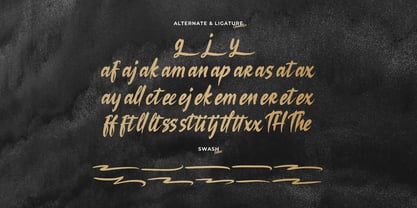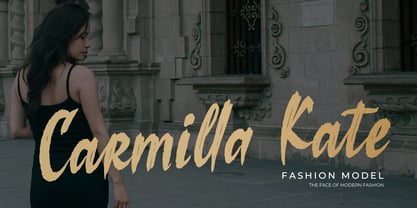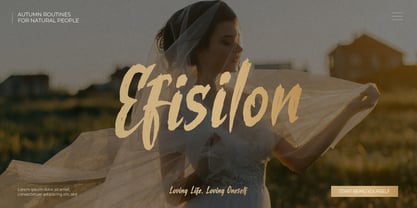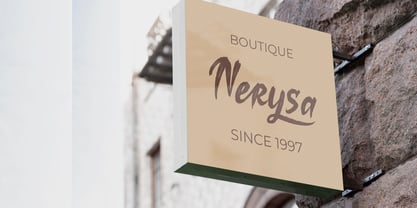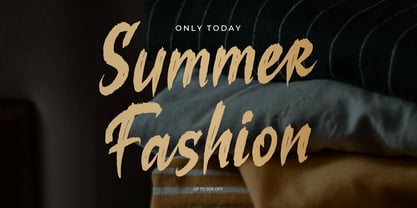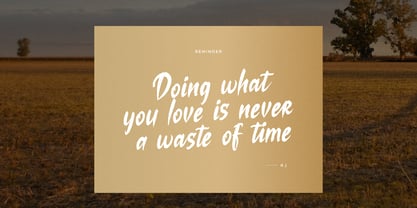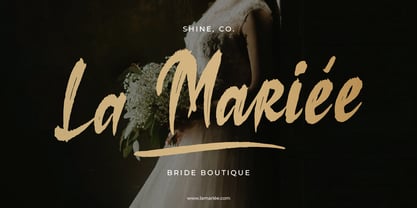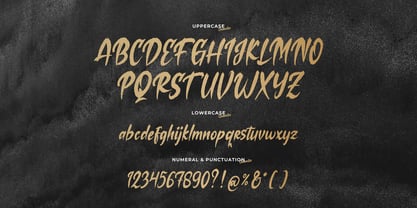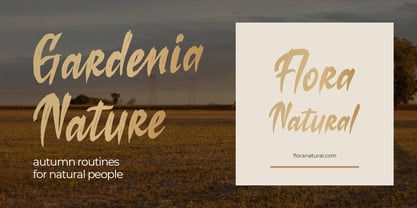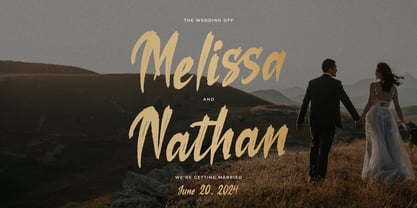
Losiento
von Denustudio
Die Schriftfamilie Losiento wurde von Dede Nugraha entworfen und von Denustudio veröffentlicht. Losiento enthält 2 Stile und Familienpaketoptionen. Mehr über diese Familie
Losiento | Brush Handwritten Font, from Denustudios, suitable for any projects such as: logos, branding projects, homeware designs, product packaging, mugs, quotes, posters, shopping bags, t-shirts, book covers, name card, invitation cards, greeting cards, label, photography, watermark, special events, and all your other lovely projects that need a Brush Bold Quirky taste.
• Regular and Italic
• Alternate and Ligature